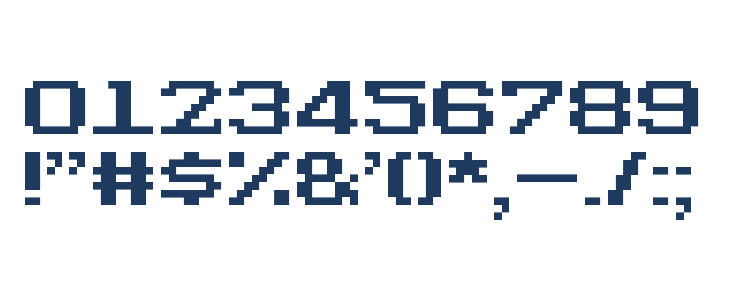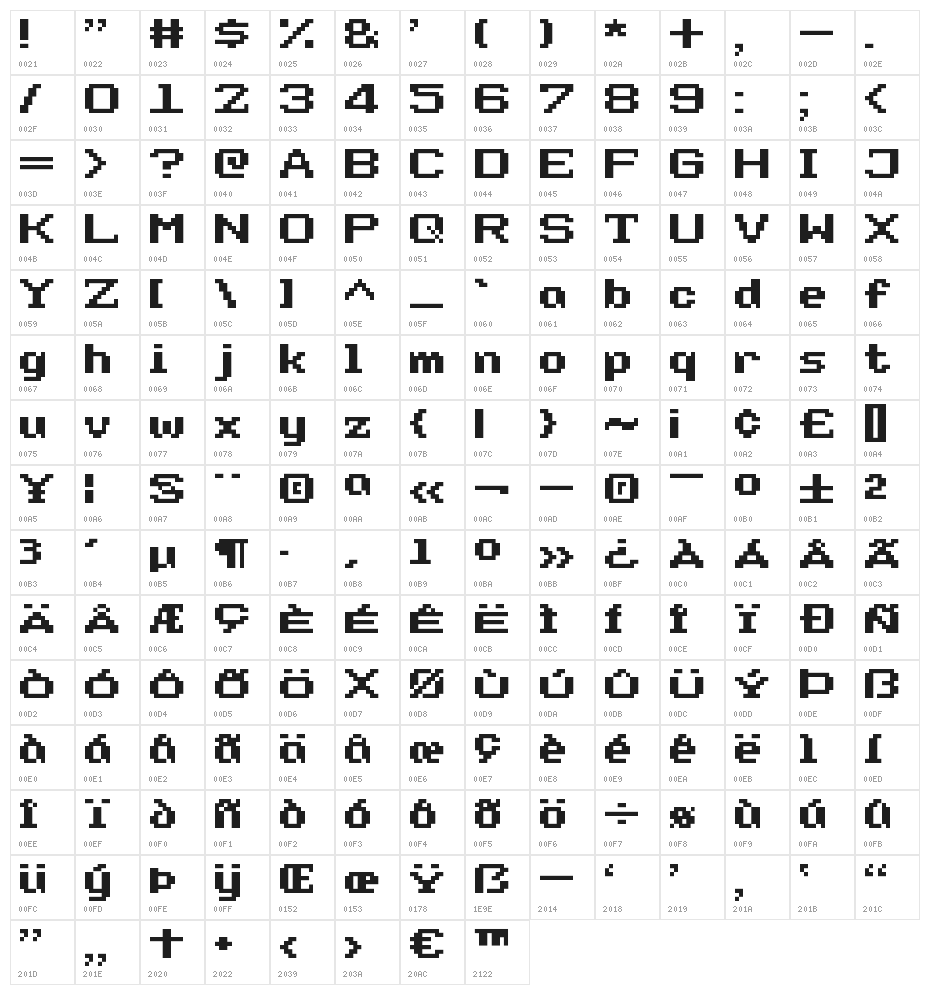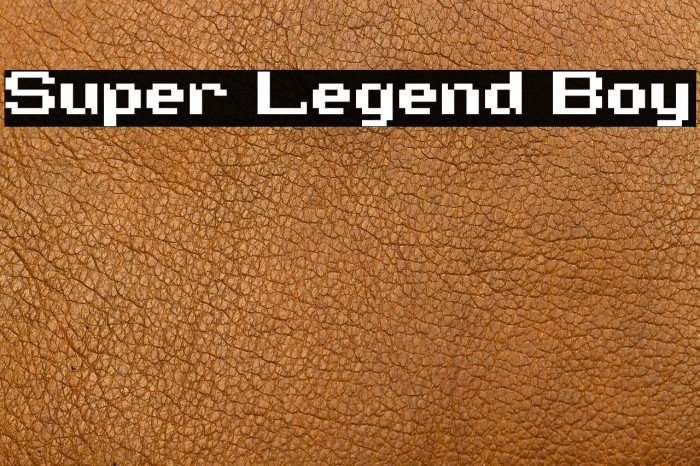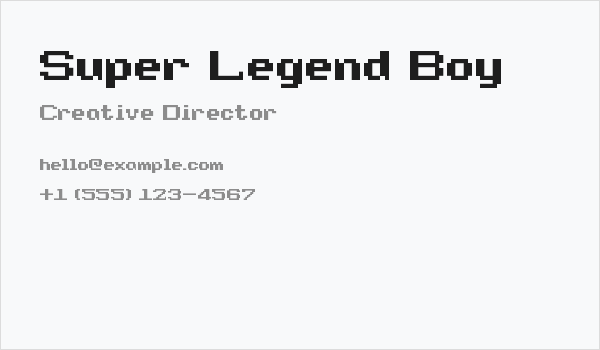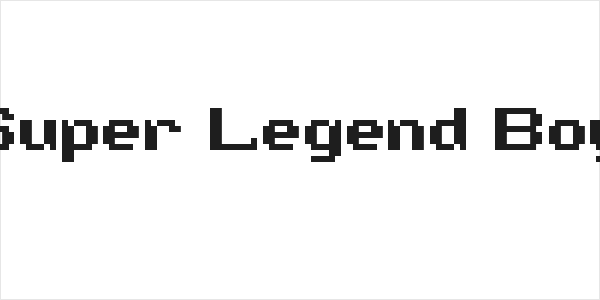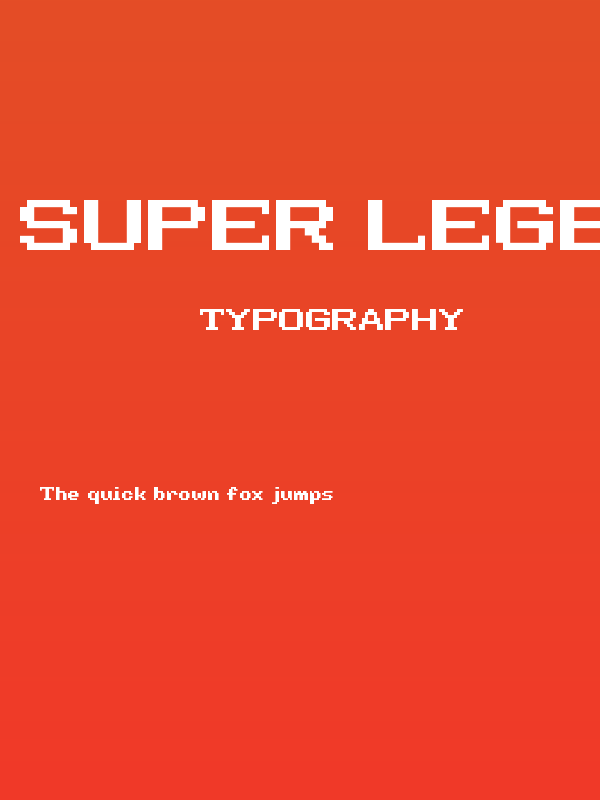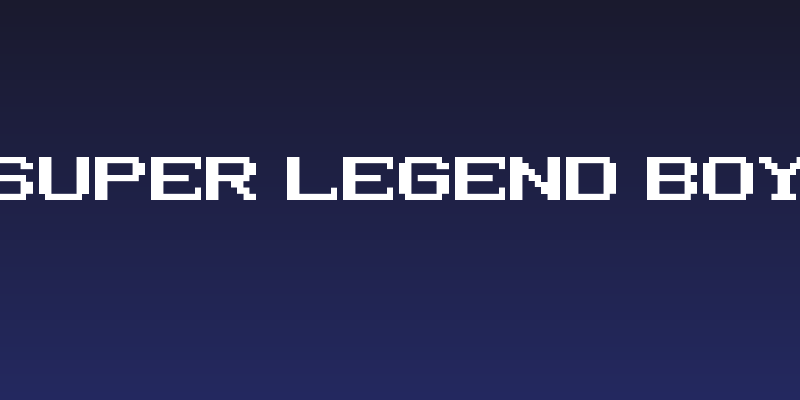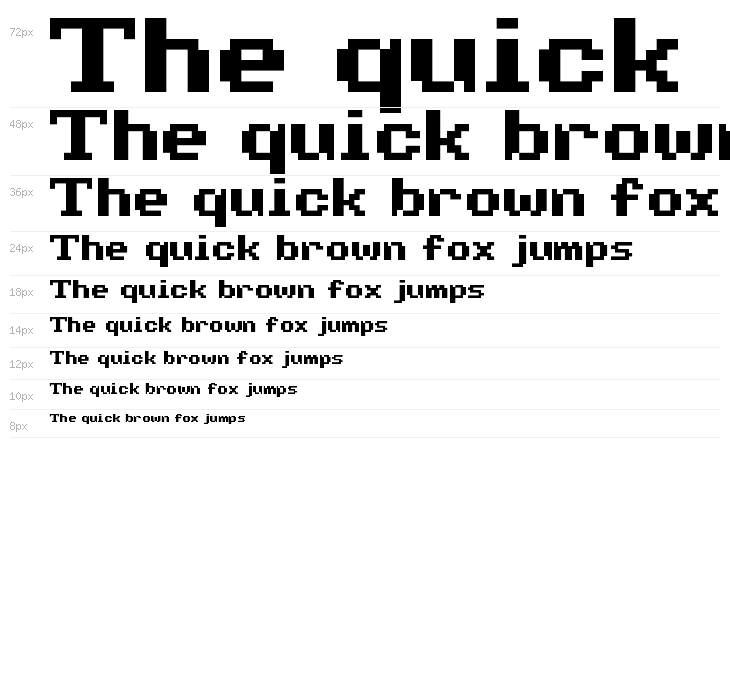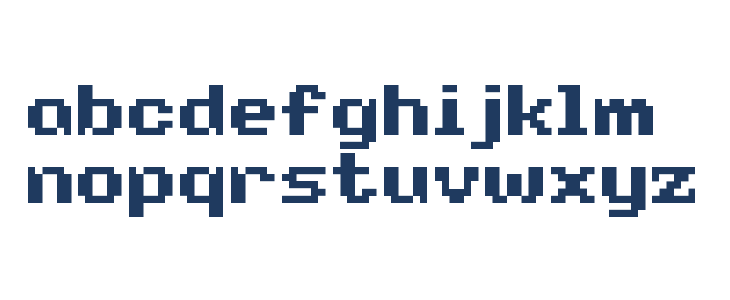
Super Legend Boy Font
Super Legend Boy Description
This font features a bold, pixelated design reminiscent of classic video game graphics. Each character is constructed with a blocky, grid-like structure, giving it a retro and digital appearance. The uppercase and lowercase letters maintain a consistent height, enhancing readability while preserving the nostalgic feel. Numbers and special characters follow the same pixelated style, ensuring uniformity across all glyphs. The font's simplicity and geometric shapes make it ideal for projects that aim to evoke a sense of nostalgia or a digital theme.
| Use Case | Logos, Headlines, Digital Art |
| Proposed Projects | Ideal for retro-themed video games, digital art projects, and nostalgic branding. |